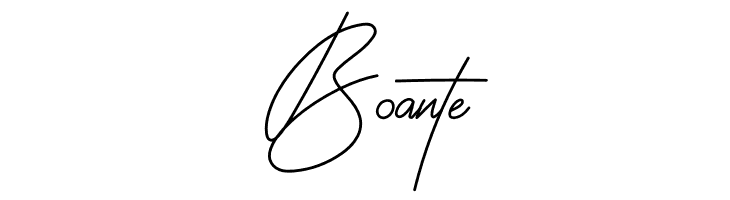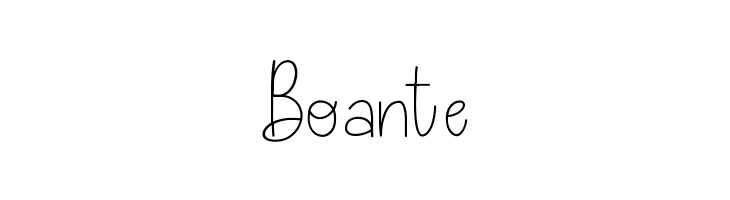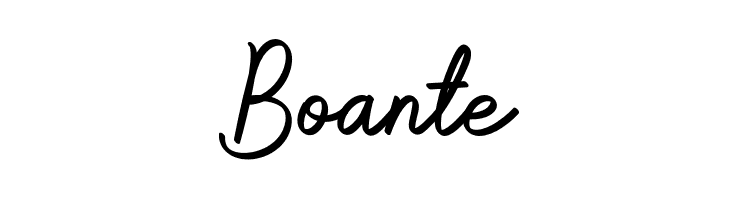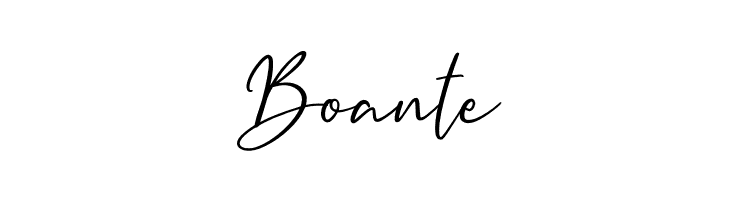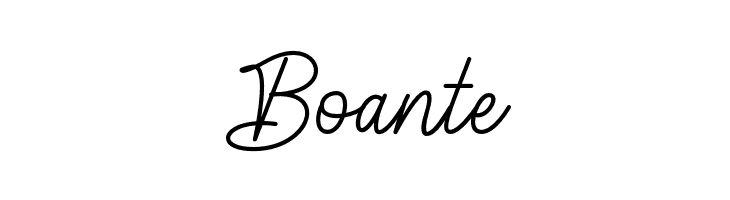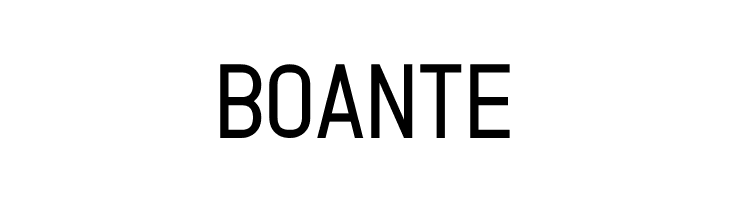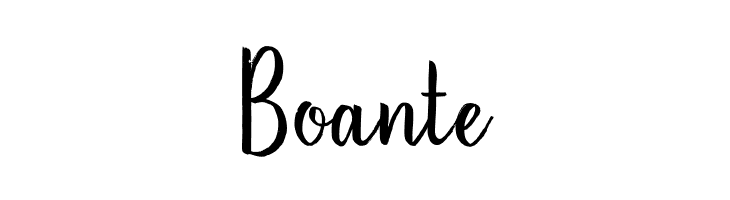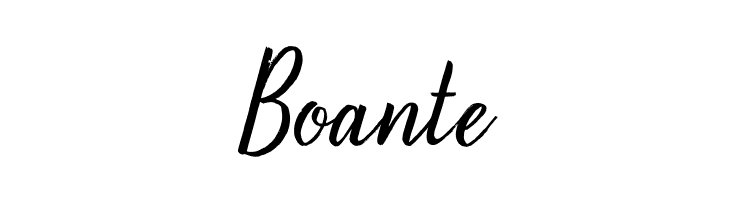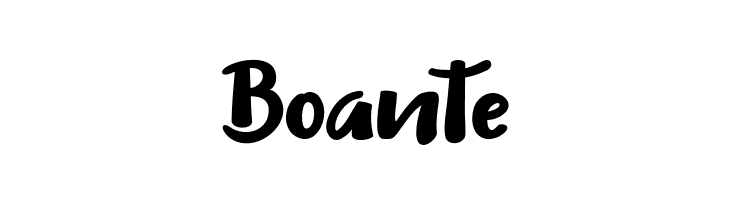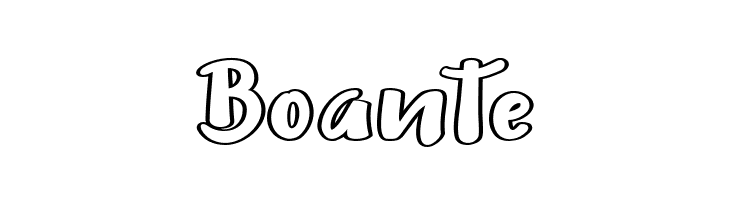
A graceful and flowing script font with elegant cursive letters.
A playful, hand-drawn font with a whimsical and casual style.
A playful, hand-drawn font with tall, narrow letters and a whimsical style.
A lively and expressive script font with fluid, interconnected letterforms.
A bold, expressive script font with dynamic, textured strokes.
A modern, geometric sans-serif font with consistent stroke widths and clean lines.
A modern, light sans-serif font with clean lines and excellent readability.
A clean, modern sans-serif font with semi-bold weight and balanced design.
An elegant, flowing script font with a handwritten aesthetic.
A bold and dynamic brush script font with fluid, hand-painted strokes.
An elegant script font with flowing lines and sophisticated style.
A fluid and elegant handwritten script font with dynamic strokes.
A bold, handwritten-style font with a playful and energetic appearance.
A playful, bold outline font with rounded, slightly slanted characters.
A playful, decorative font with bold, patterned letters.
A playful, bold font with a hand-drawn, whimsical style.
A lively handwritten font with fluid, organic strokes and a playful aesthetic.
A slanted, handwritten font with dynamic brush-like strokes.
An elegant script font with fluid, cursive strokes and dramatic ascenders.
A graceful and elegant script font with flowing, cursive letterforms.
A bold, dynamic script font with a handwritten, fluid style.
A sophisticated, fluid script font with elegant, elongated strokes.
An elegant script font with flowing lines and high contrast, perfect for formal uses.
A playful, artistic handwritten font with flowing, interconnected letterforms.
An elegant script font with flowing, interconnected letters and high contrast strokes.
An expressive, cursive font with fluid, artistic strokes.
A dynamic and expressive handwritten font with fluid, interconnected strokes.
An elegant, flowing script font with high contrast and delicate strokes.
A fluid, elegant script font with a natural handwritten style.
A bold, flowing script font with expressive, connected strokes.
A sophisticated, flowing script font with elegant curves and medium contrast.
A graceful script font with flowing, cursive strokes and elegant loops.
A casual, handwritten font with a playful and artistic style.